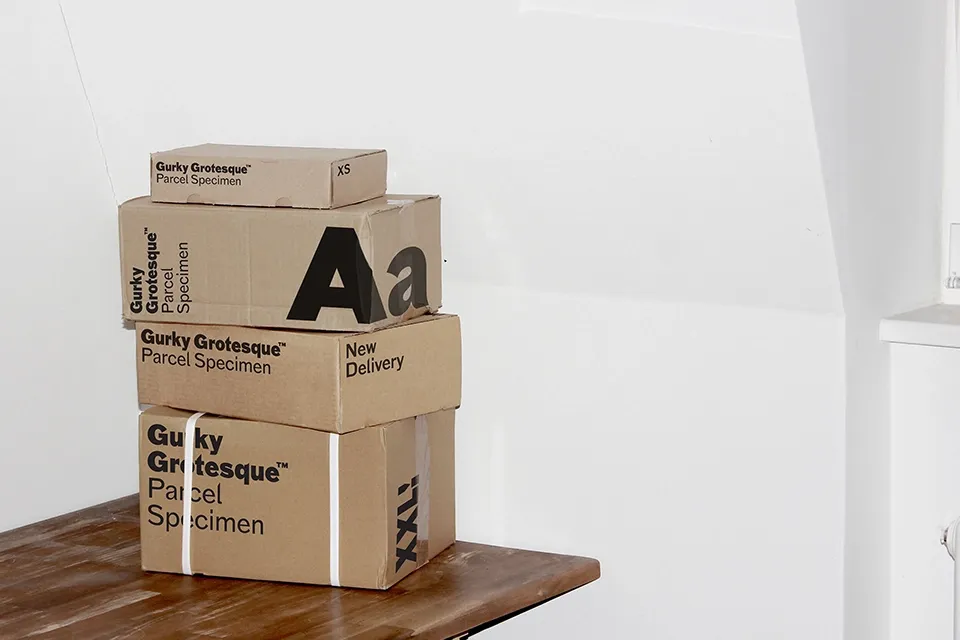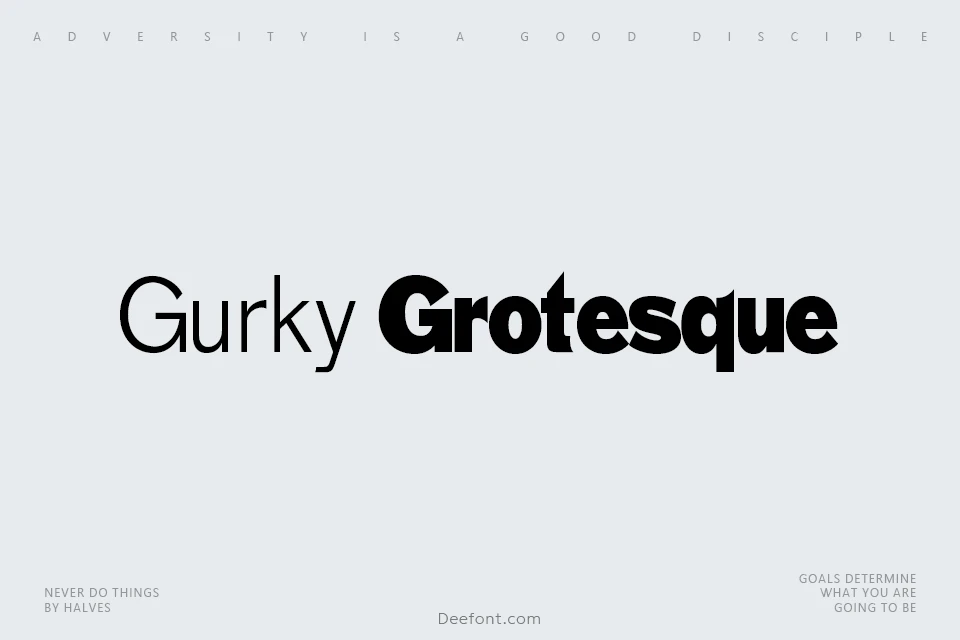
Gurky Grotesque Font Family
The Gurky Grotesque Font Family is a versatile geometric sans-serif typeface consisting of 12 styles, ranging from ExtraLight to Black. Reminiscent of old metal type, it favors quirky imperfections over smooth curves, embracing inconsistencies and edginess to revive the charm of vernacular typography. With a comprehensive character set, modern OpenType features, and variable fonts, Gurky Grotesque is designed to bring unique character and energy to both bold headlines and extended text. Its distinctive details-like the one-eyed ‘a’, dynamic ‘g’, and powerful 18° italic angle-make it ideal for corporate design, posters, and any project seeking a strong, memorable typeface.